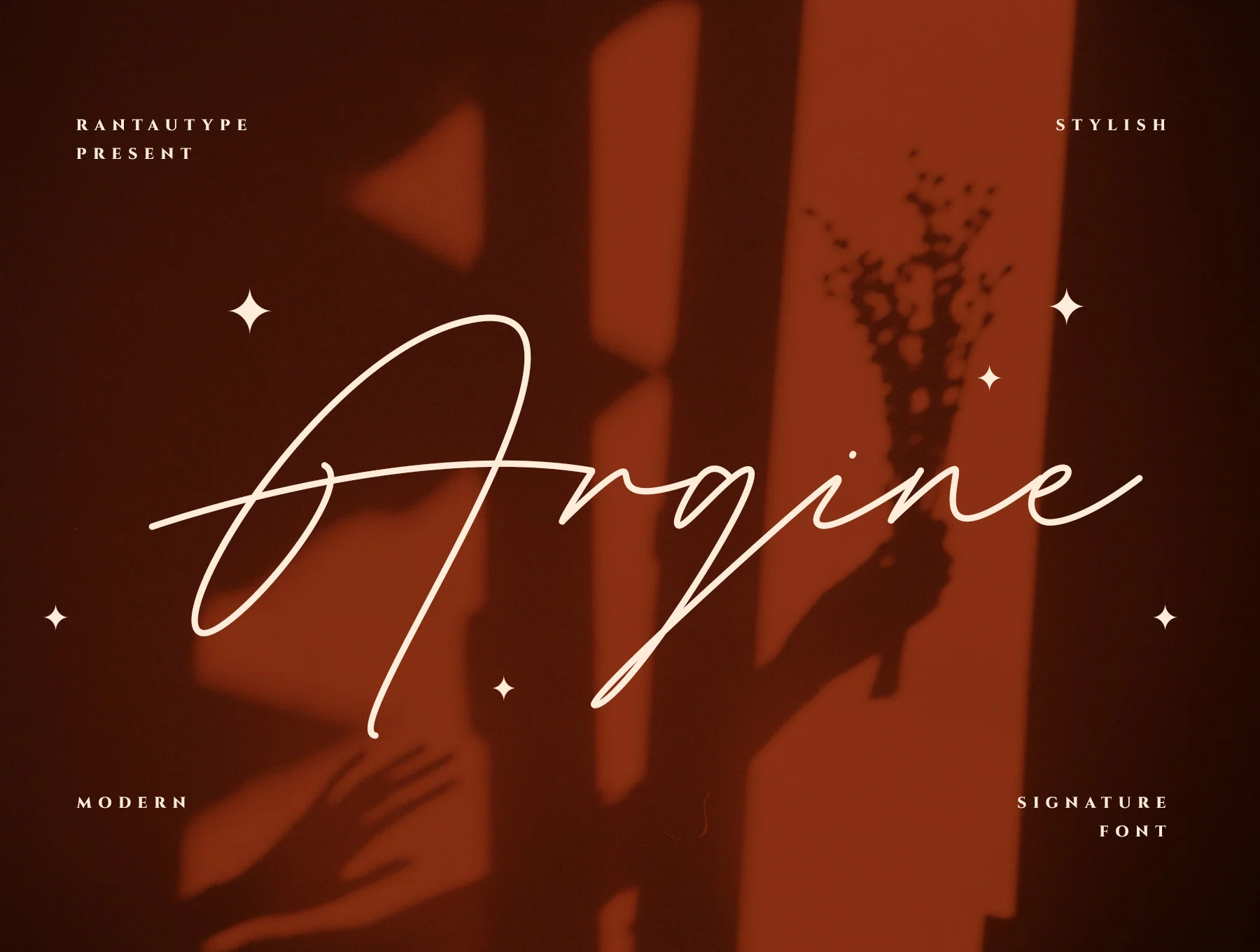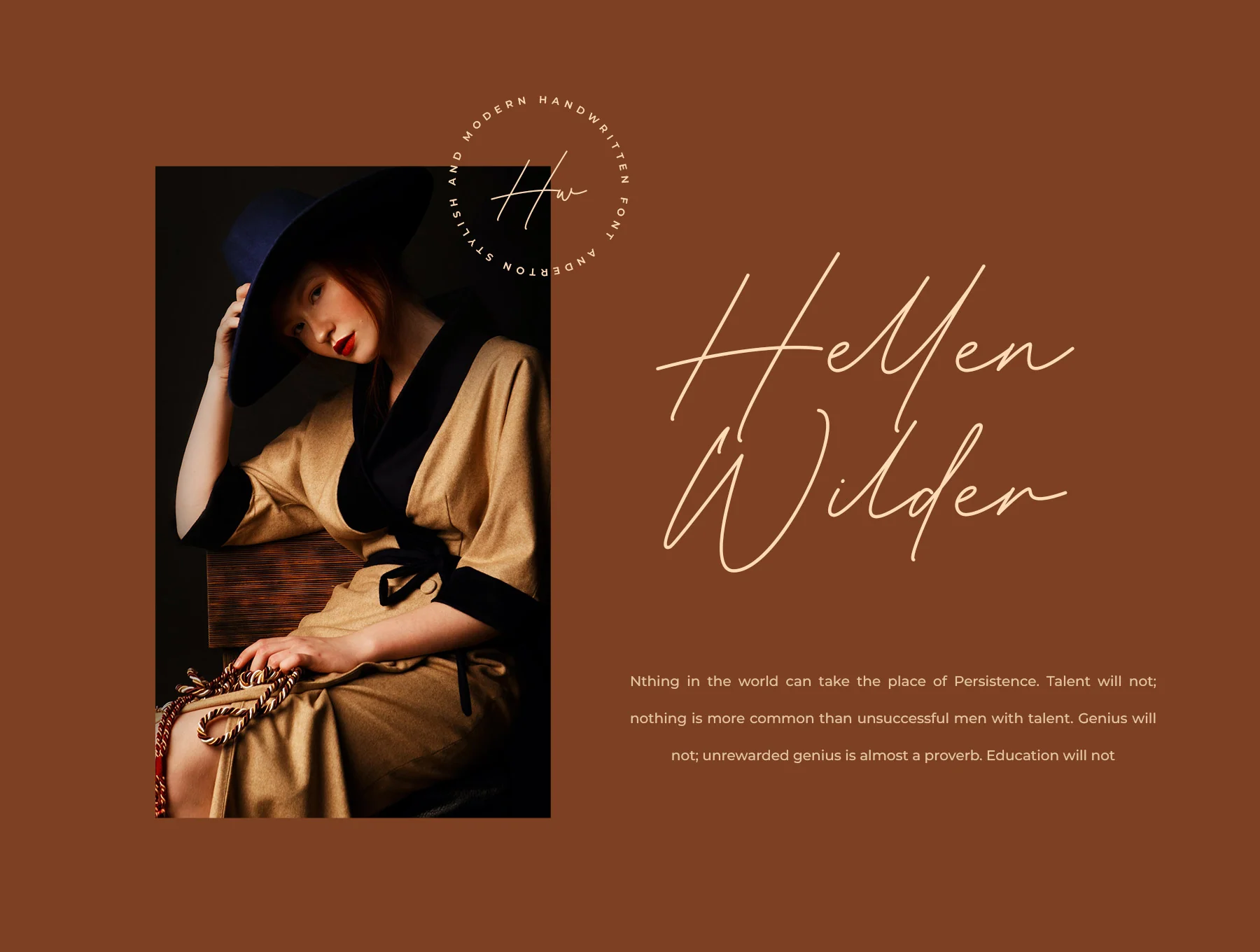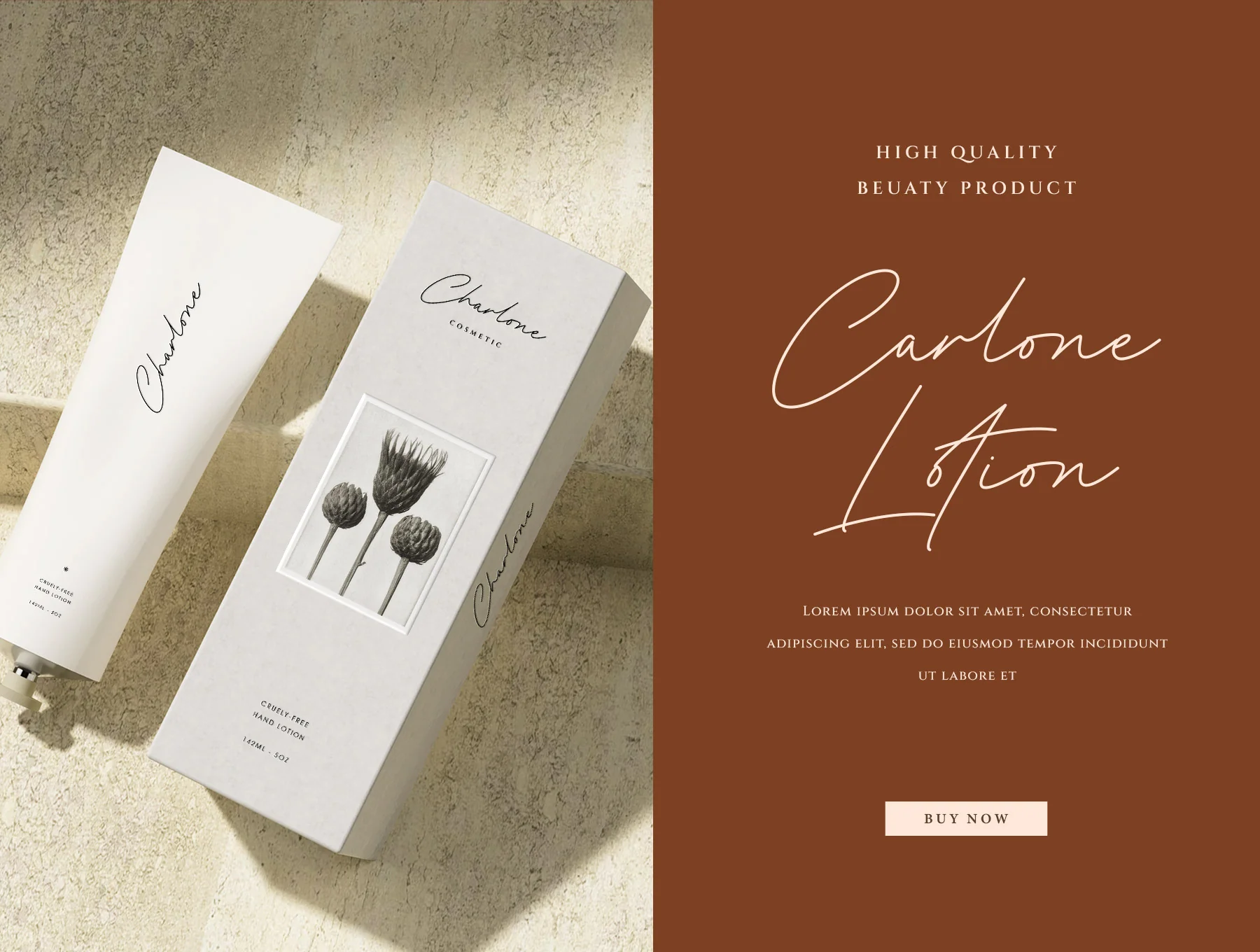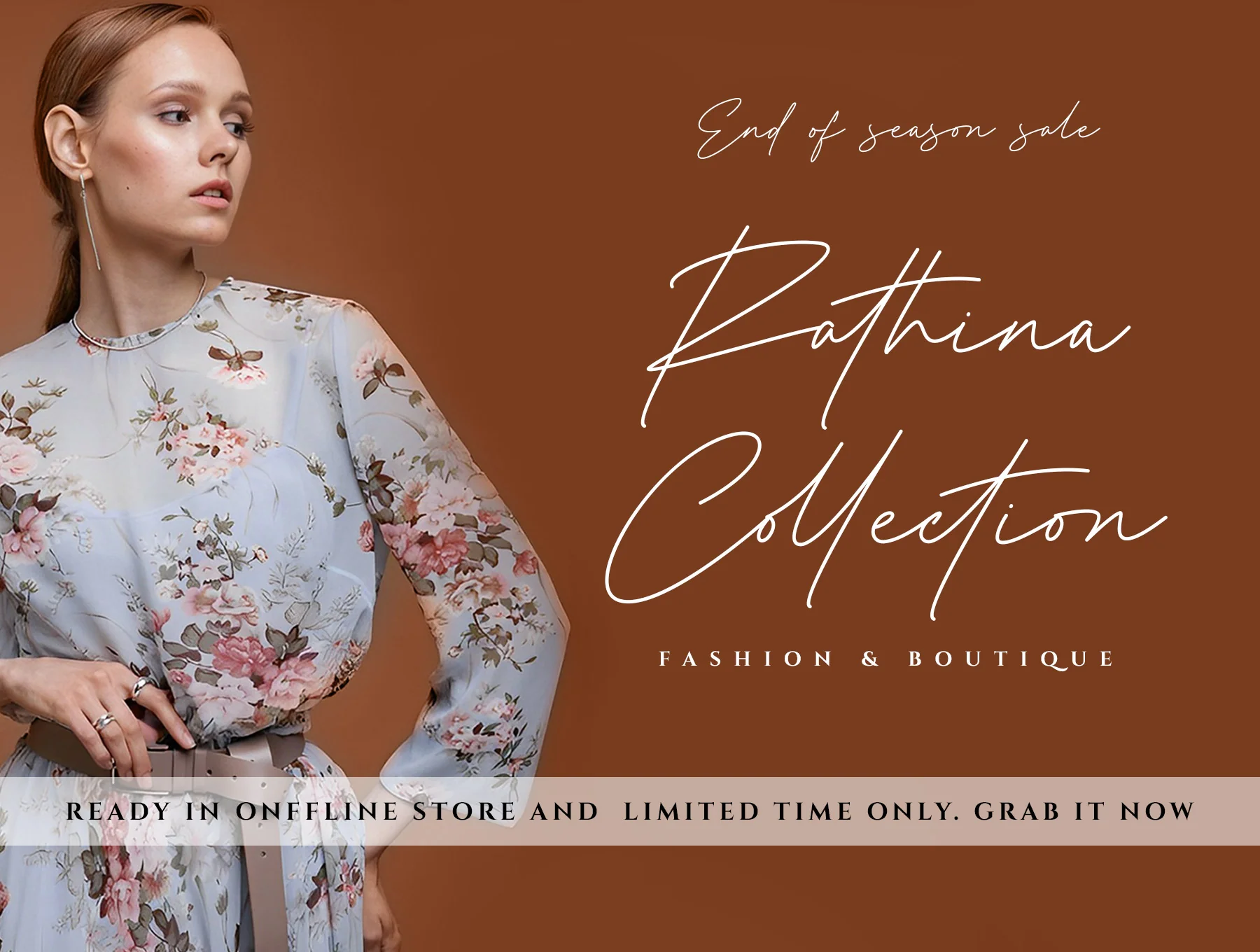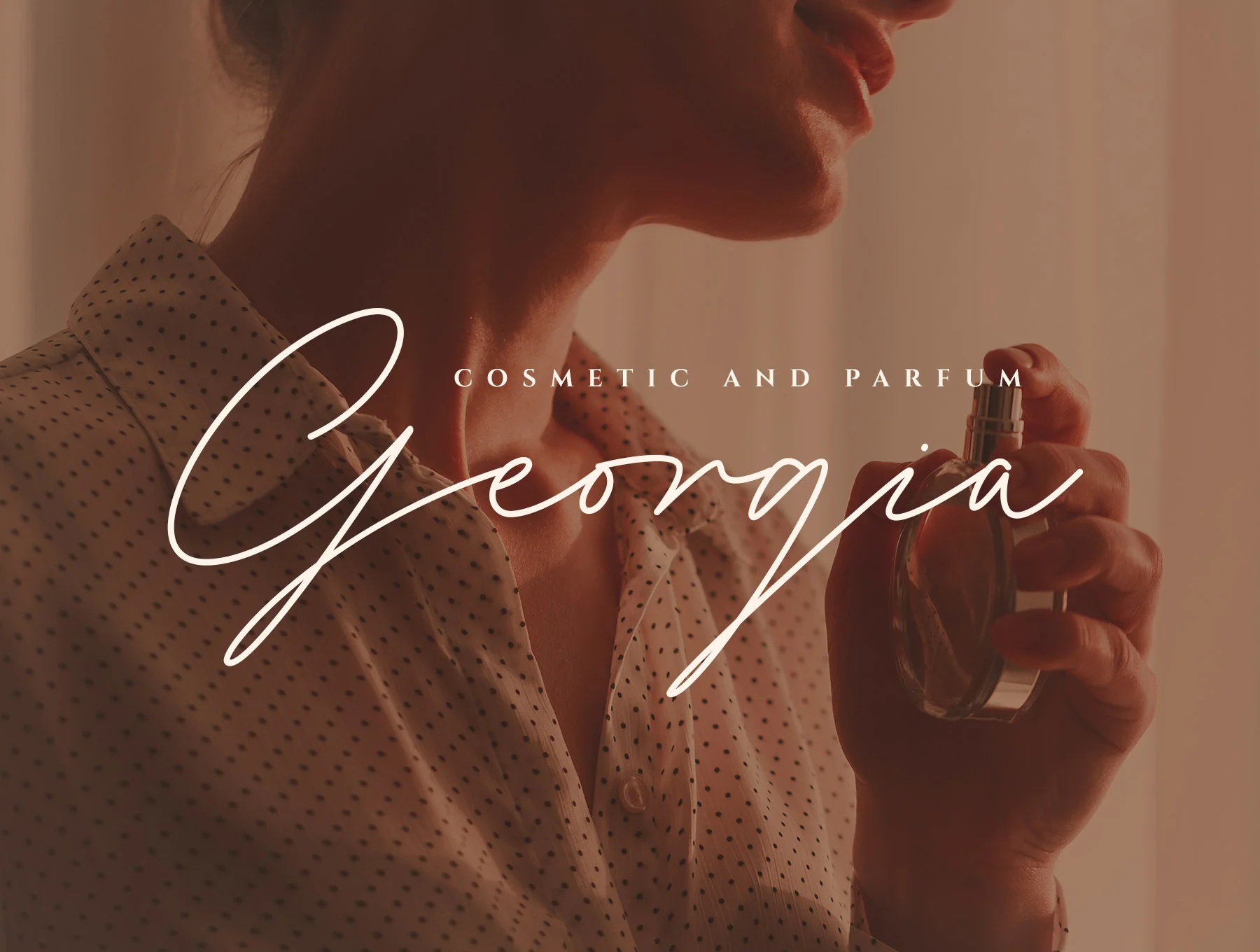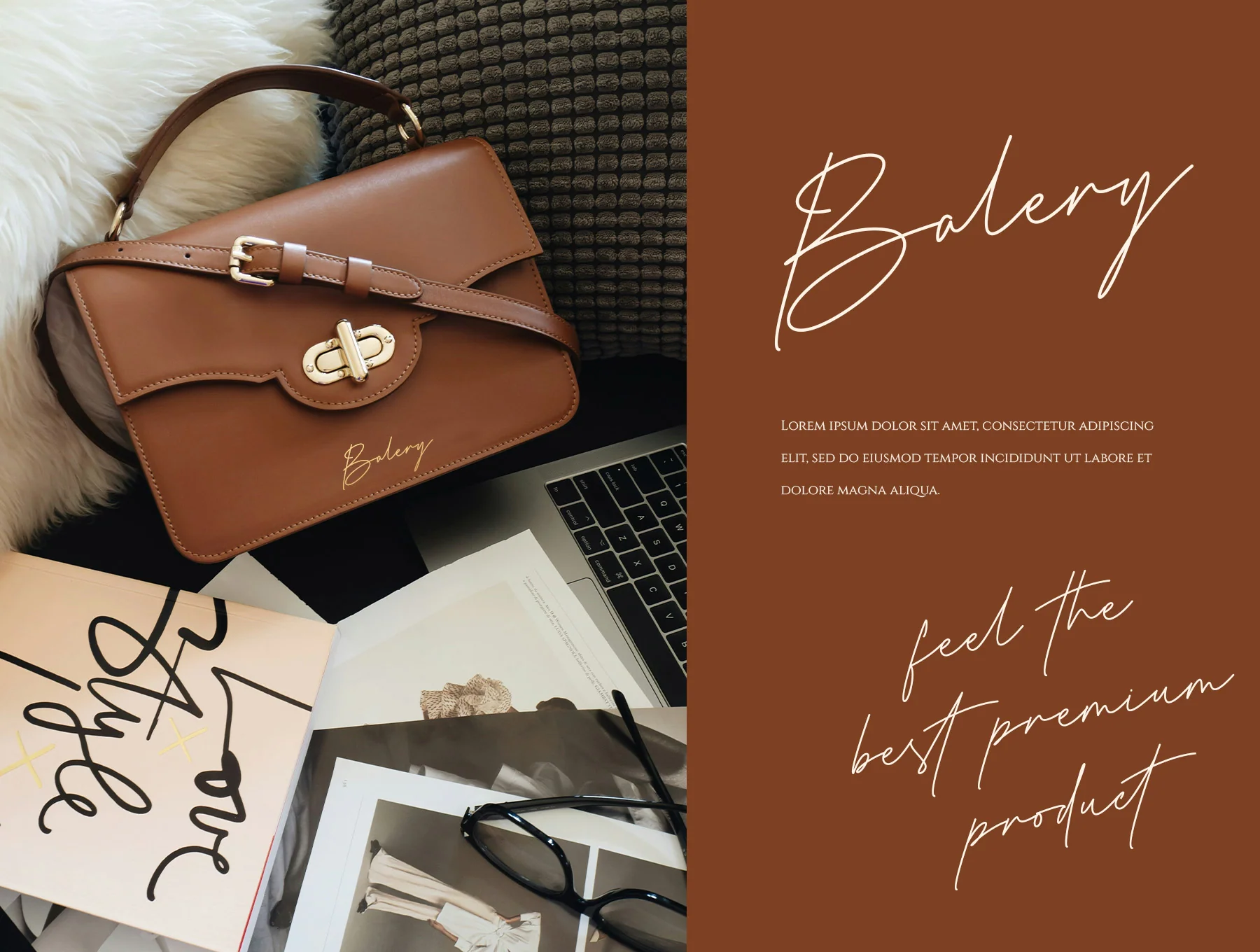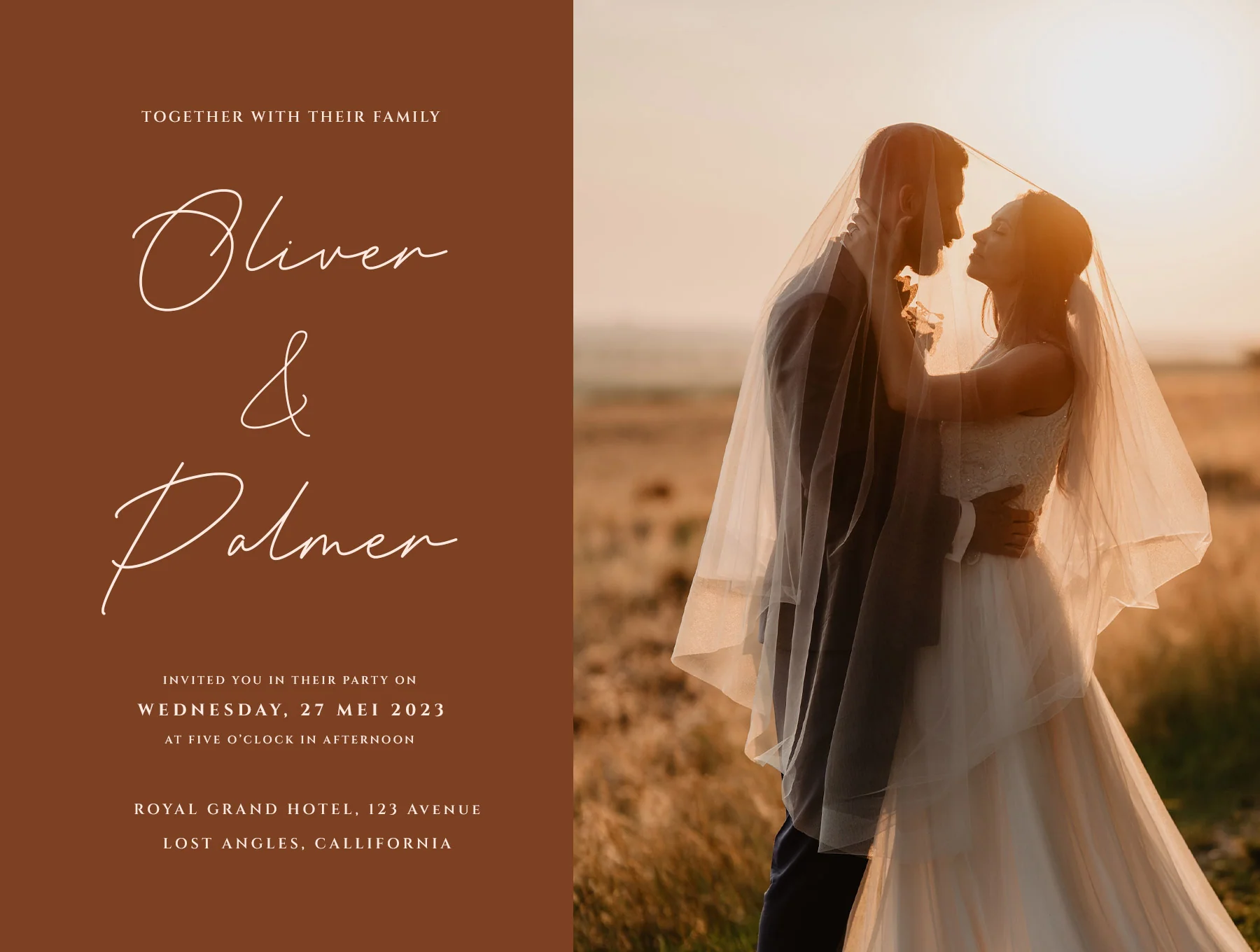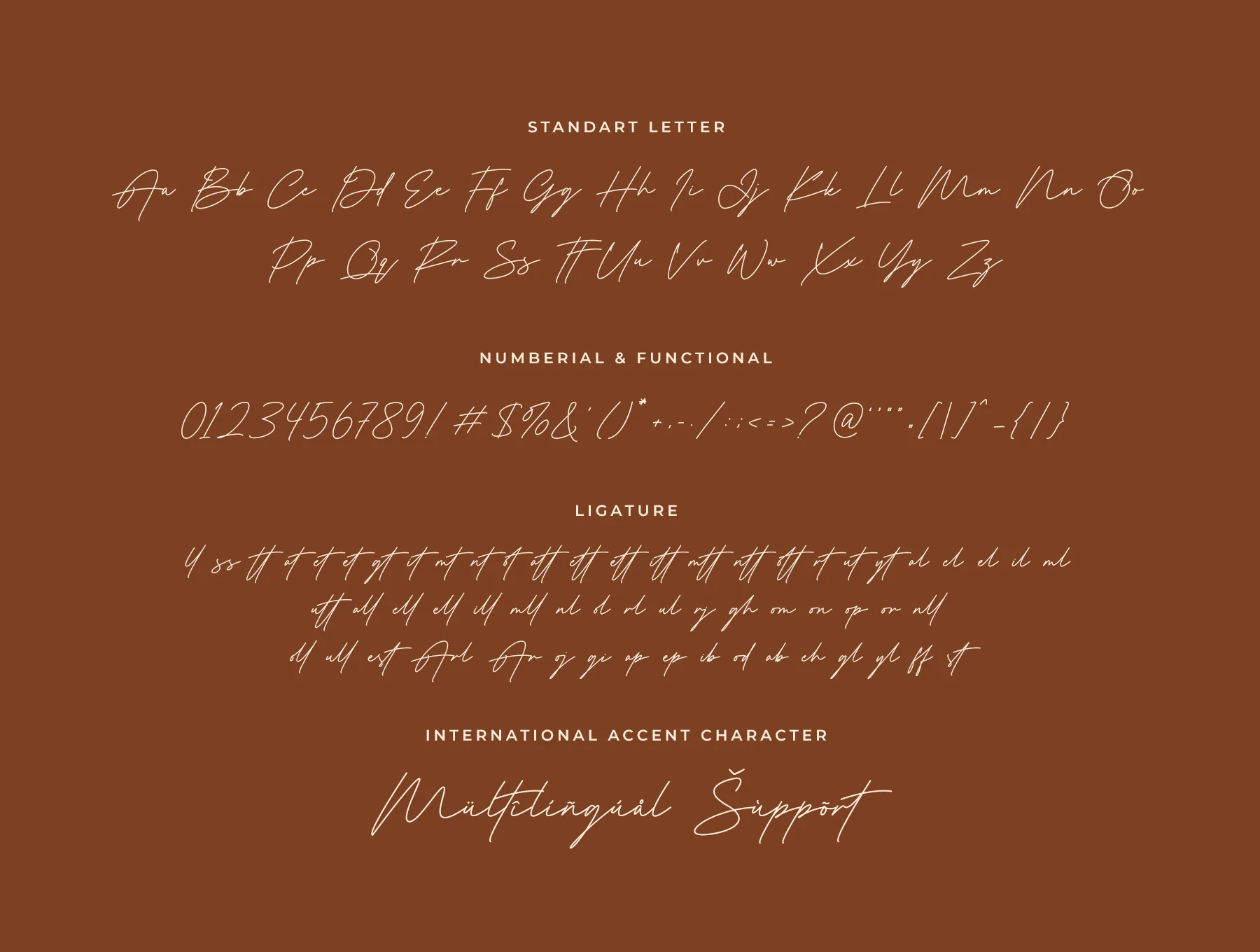
Argine Elegant Signature Font
Argine refined signature typeface
Uppercase and lowercase A–Z letters
Numerals plus functional characters
Supported ligatures
Uppercase and lowercase A–Z letters
Numerals plus functional characters
Supported ligatures
Argine is a stylish signature font for business and creative work, blending professional character with smooth natural curves. Modern, clean, elegant, legible, and simple to apply, it includes ligatures and multilingual accents. Ideal for logos, titles, photo watermarks, covers, branding, magazines, weddings, quotes, albums, cards, and corporate projects. Files: OTF, TTF, WOFF.